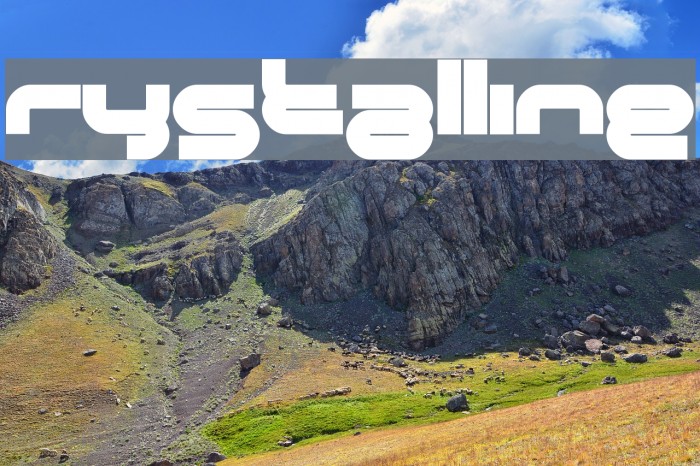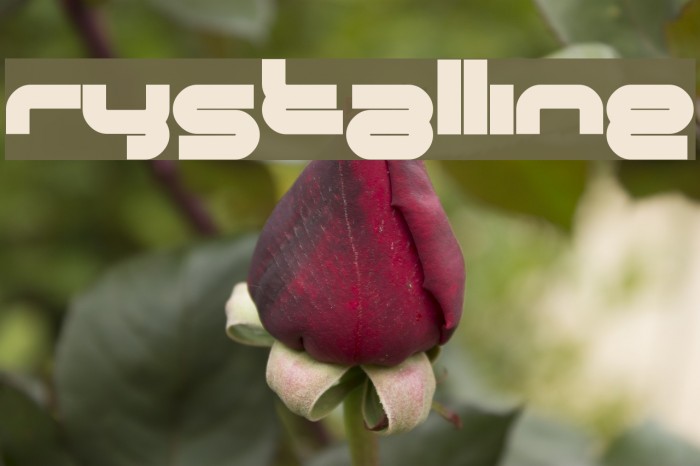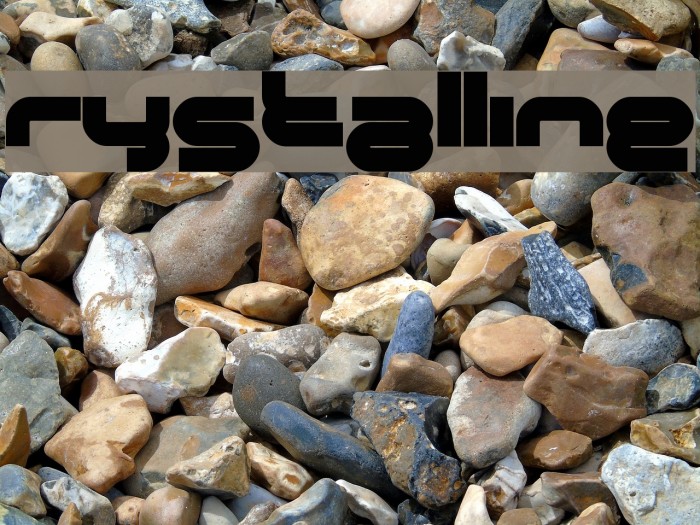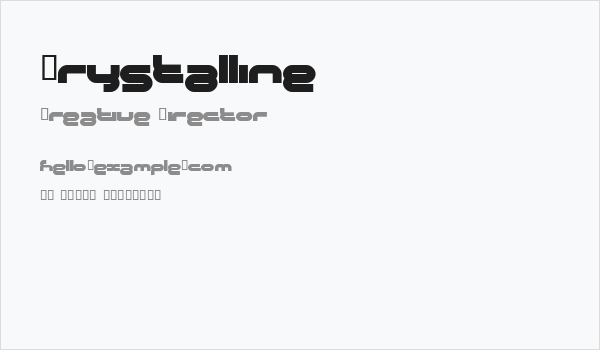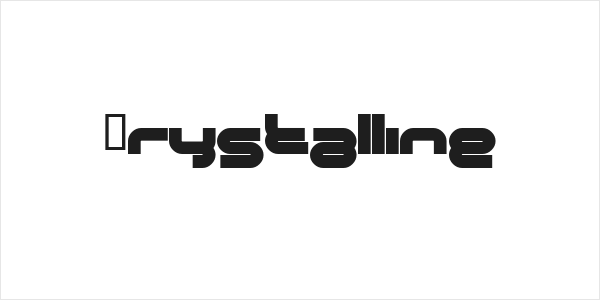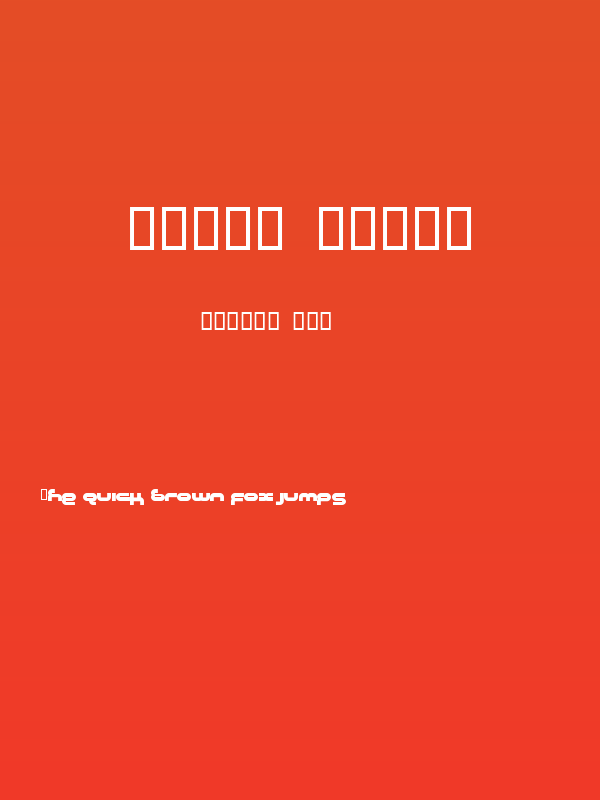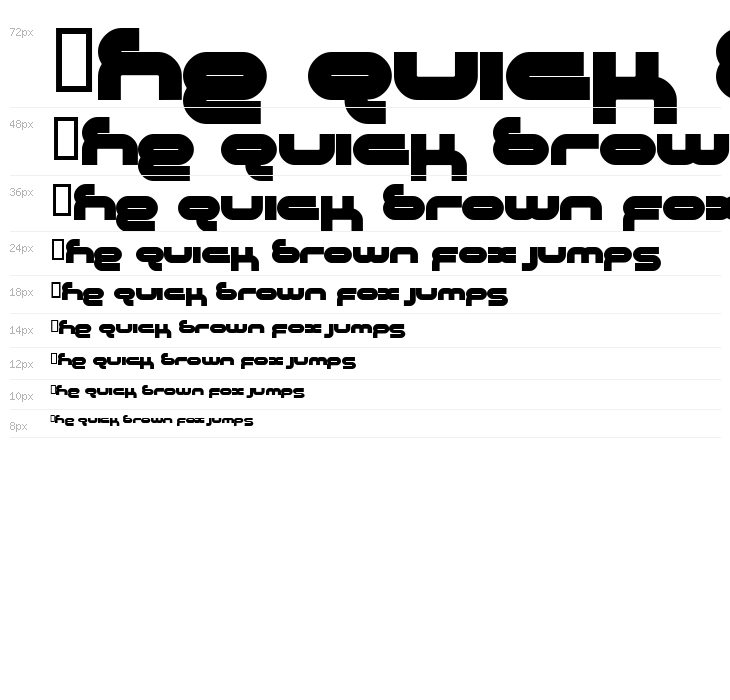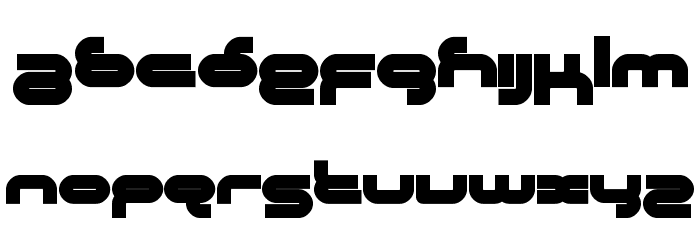
Crystalline Font
Crystalline Description
This font features a bold and geometric design, characterized by its thick, block-like letters with rounded edges. The uppercase letters are uniform in height and width, creating a cohesive and structured appearance. The lowercase letters maintain the boldness but introduce slight variations in height, adding a touch of dynamism. The numerals are consistent with the overall style, ensuring readability while maintaining the geometric theme. Special characters are designed to complement the alphanumeric characters, with a focus on symmetry and balance. This font's distinct style makes it ideal for projects that require a modern and impactful visual presence.
| Proposed Projects | Ideal for branding, posters, headlines, and any project needing a strong visual impact. |